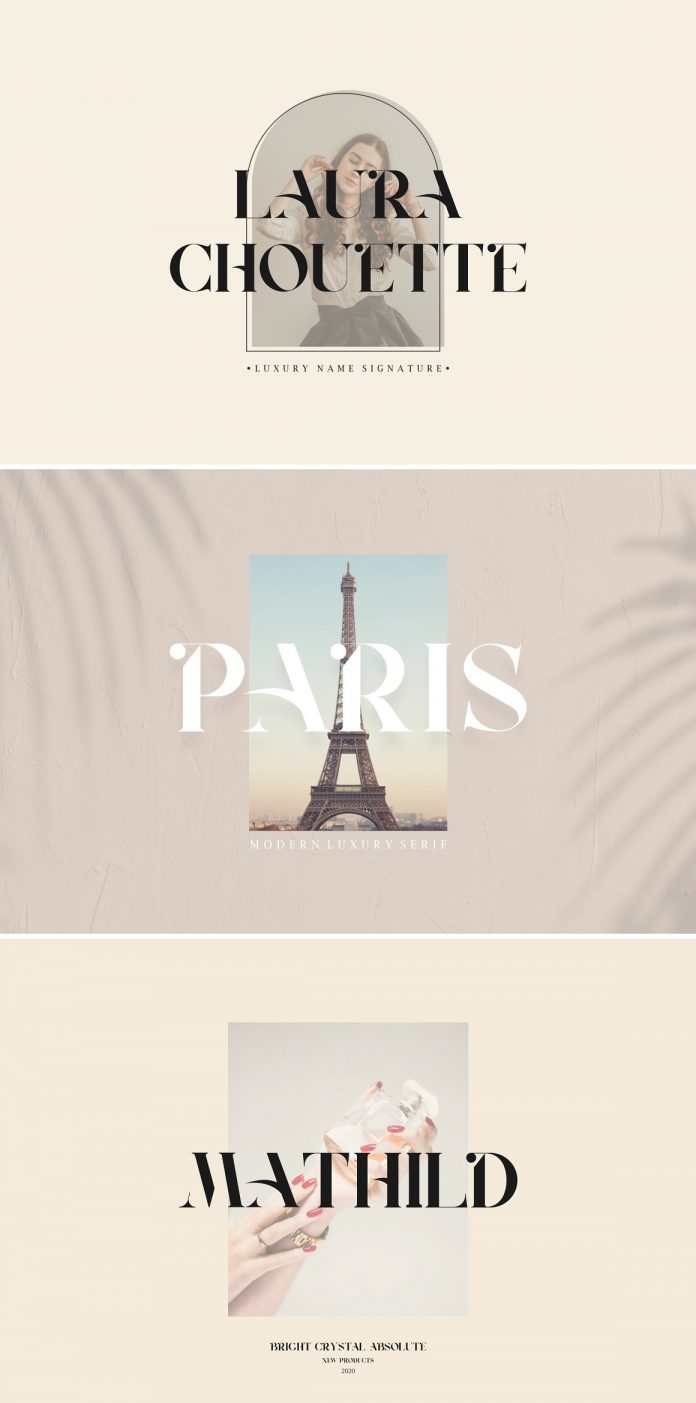
Rucas, a modern but elegant display serif font with a luxurious look.
Designed and published by Vroz Studio, the Rucas font has been created for display use. Its unique look is a great choice for elegant headlines or logotypes. It’s suitable for plenty of design projects including fashion, magazines, logos, branding, photography, invitations, quotes, blog headers, posters, advertisements, postcards, books, websites, just to name a few. Just click on one of the following links to learn more.